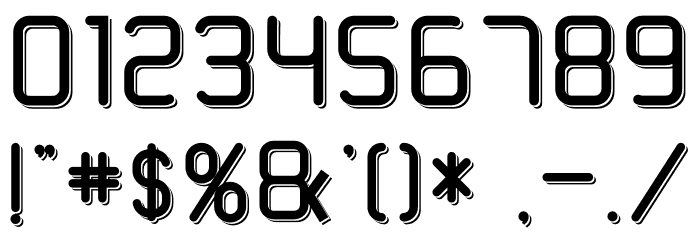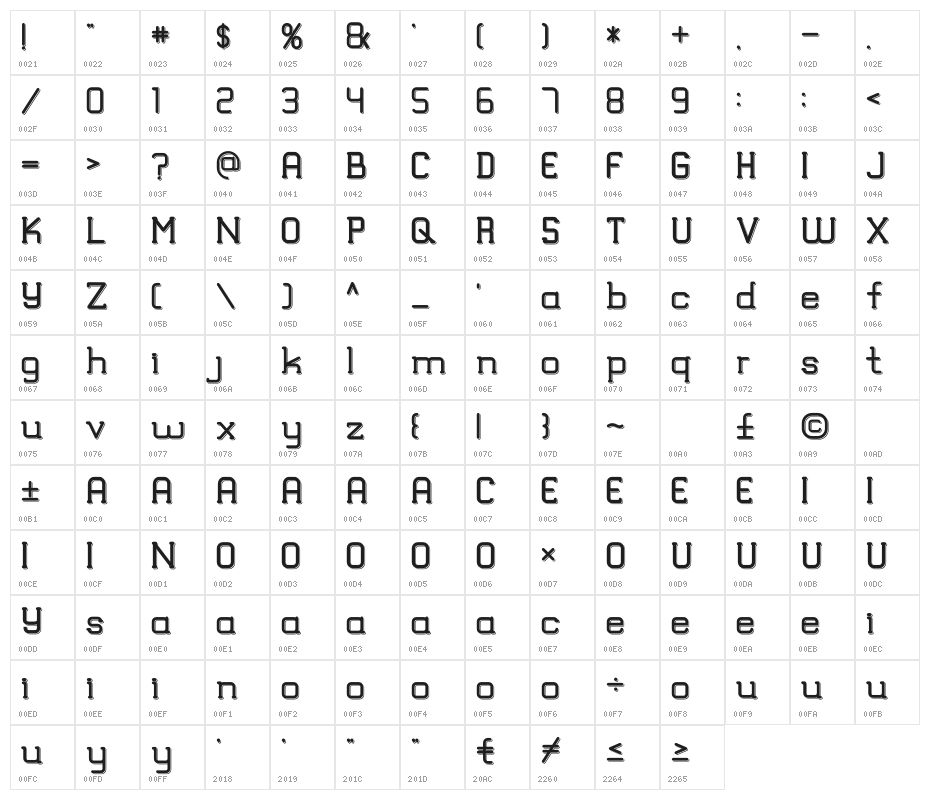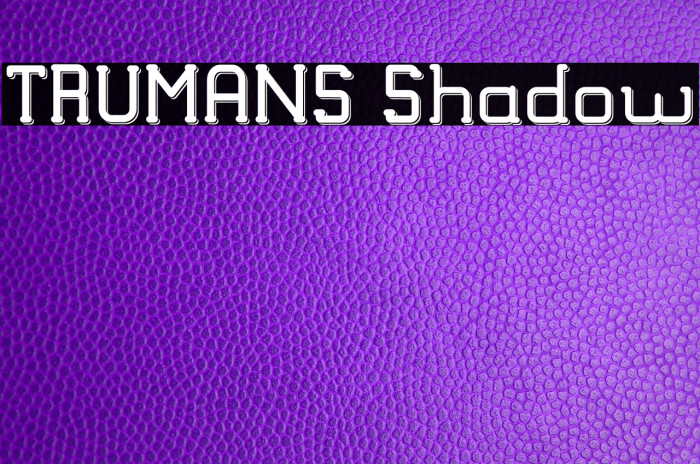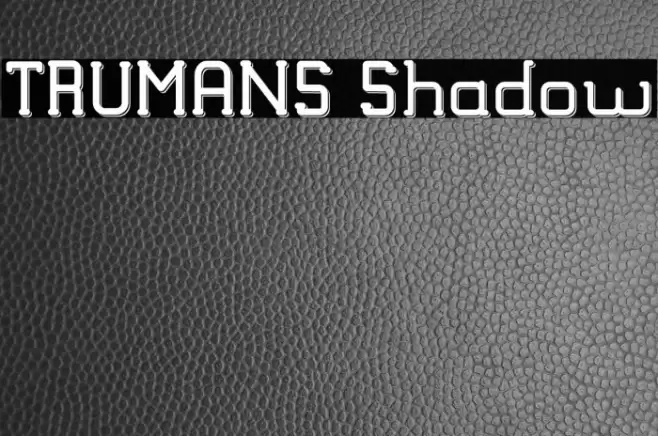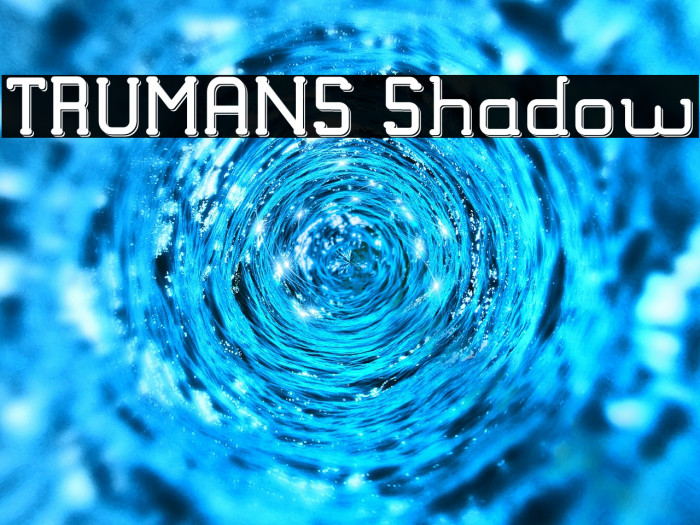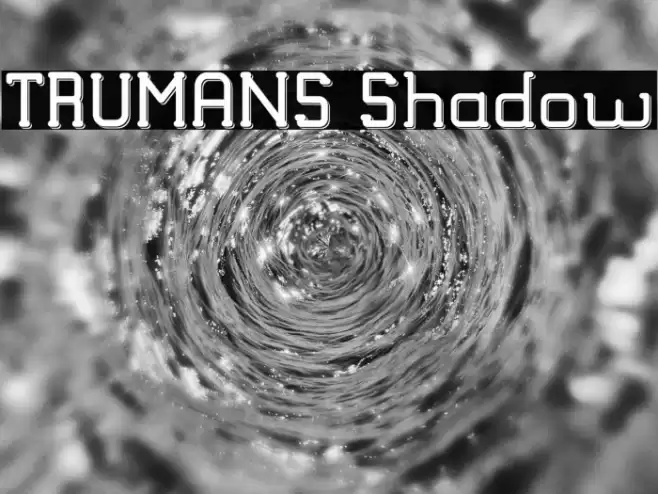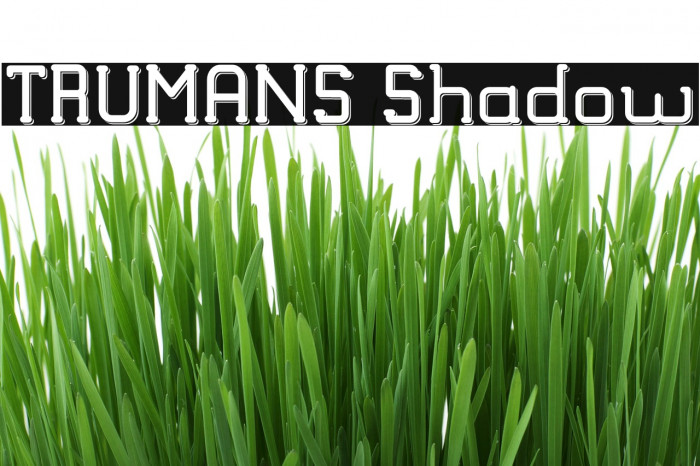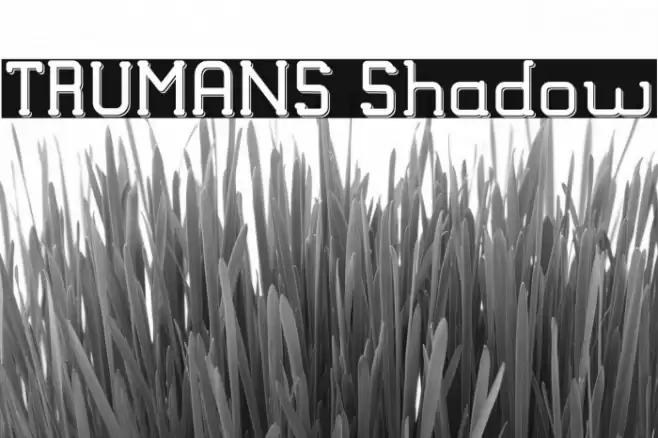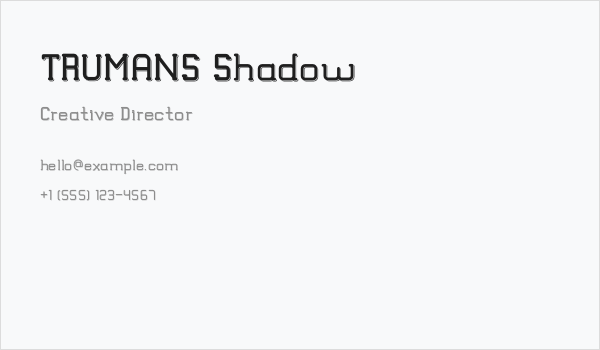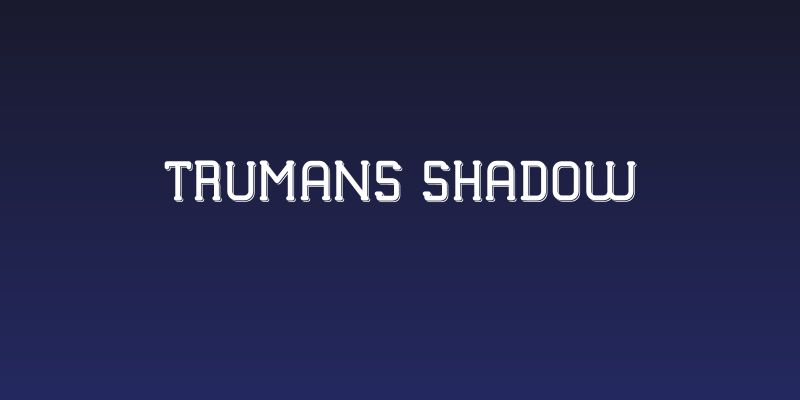
TRUMANS Shadow Font
TRUMANS Shadow Description
This font features a bold, geometric design with a distinct shadow effect that adds depth and dimension to each character. The uppercase and lowercase letters maintain a consistent structure, with rounded edges and a modern, industrial feel. The numerals are equally bold, ensuring readability and a cohesive look across different uses. Special characters are included, each designed to match the overall aesthetic. The shadow effect gives this font a unique, eye-catching appearance, making it suitable for attention-grabbing designs.
| Proposed Projects | Ideal for posters, logos, headlines, and any design project requiring a bold, modern look. |